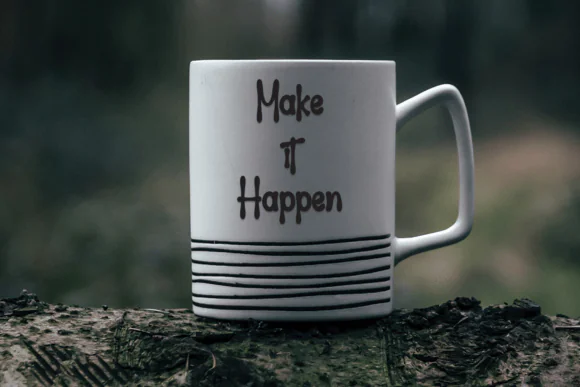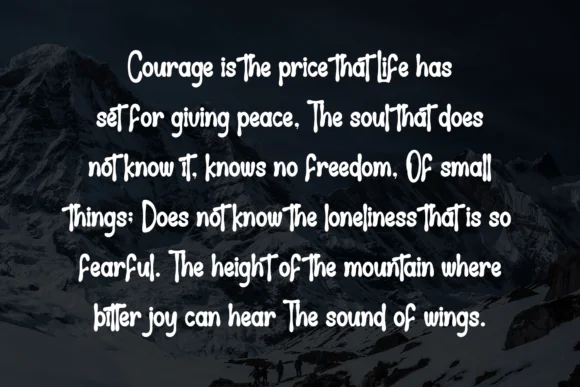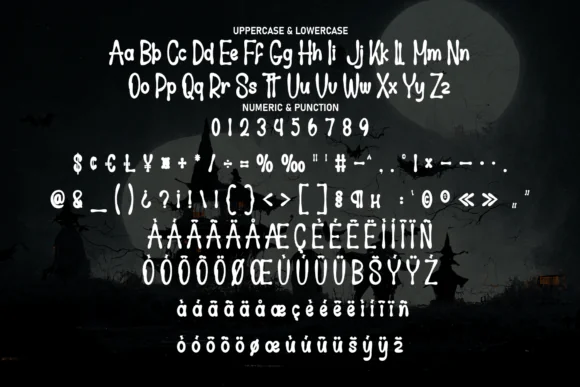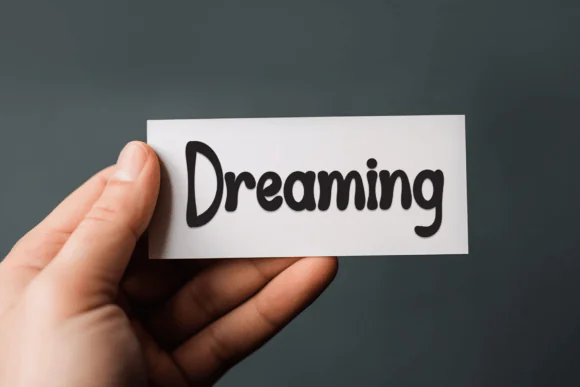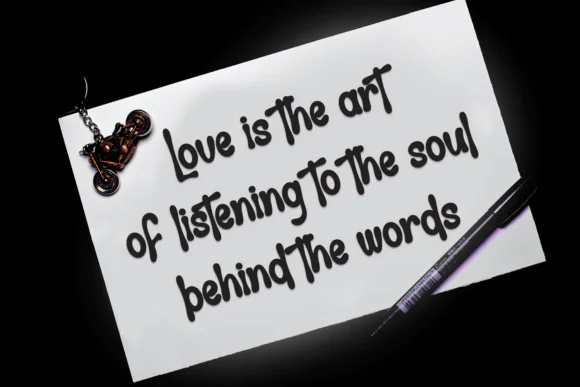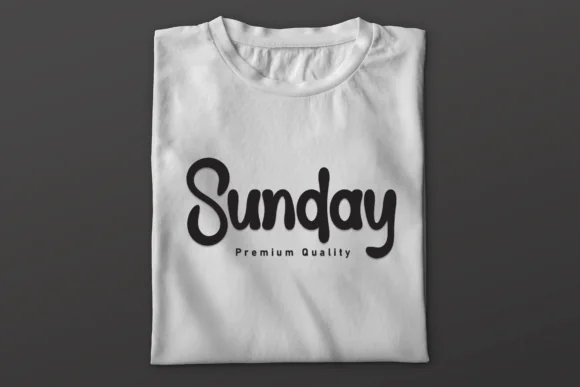
Spooky Halloween Font | Cute Handwritten Display Font for Halloween Cards, Invitations, Party Designs, T-Shirts, Crafts & Fun Seasonal Projects
Create playful, warm, and friendly seasonal designs with Spooky Halloween Font, a charming handwritten display font with a cute and cheerful personality. This font is designed to bring a fun handmade feel to your creative projects, making it suitable for Halloween-themed designs, playful cards, invitations, craft projects, apparel, stickers, mugs, posters, and social media graphics.
Unlike scary or heavy horror fonts, Spooky Halloween Font has a softer and more delightful handwritten look. Its friendly curves and inviting character make it perfect for cute Halloween projects, kids’ party designs, family-friendly spooky graphics, personalized cards, quote designs, printable decorations, and creative products that need a lighthearted festive touch.
This font is a great choice for designers, crafters, small business owners, and digital product sellers who want to create fun, lively, and approachable Halloween designs.
• Halloween party invitations
• Cute spooky greeting cards
• Kids’ Halloween designs
• T-shirt and sweatshirt designs
• Mug and sticker designs
• Sublimation projects
• Printable wall art
• Posters and banners
• Craft projects
• Cricut and Silhouette designs
• Quote boards and signs
• Seasonal branding
• Charming handwritten display style
• Cute, warm, and friendly appearance
• Great for playful Halloween designs
• Perfect for cards, invitations, shirts, and crafts
• Adds a fun handmade touch to your typography
• Suitable for both print and digital projects
Spooky Halloween Font is a lovely choice for creating cheerful Halloween designs that feel cute, festive, and full of personality.